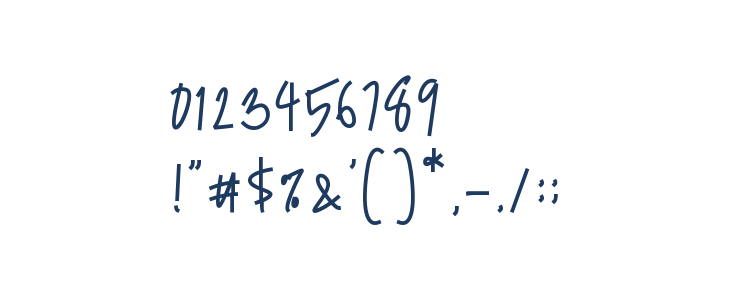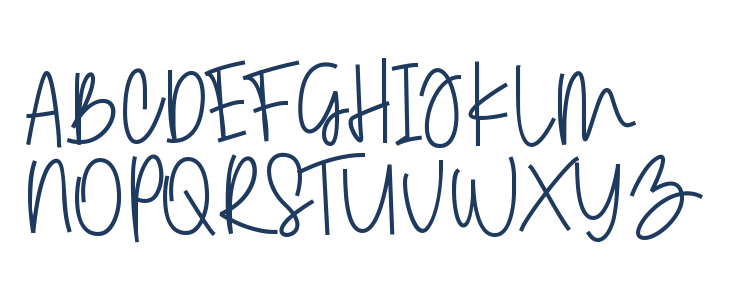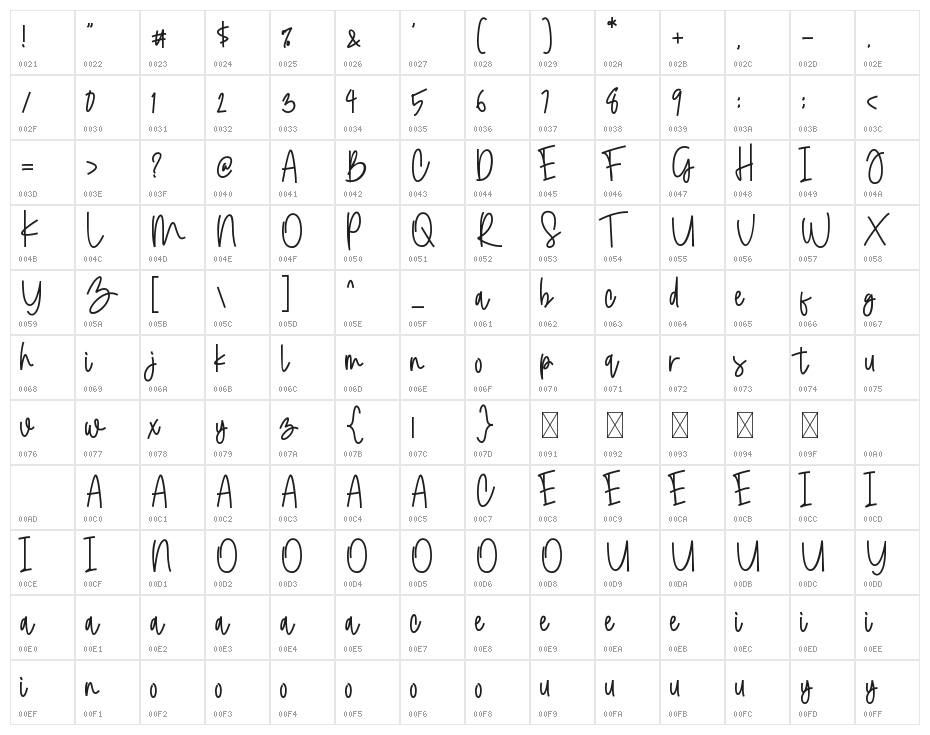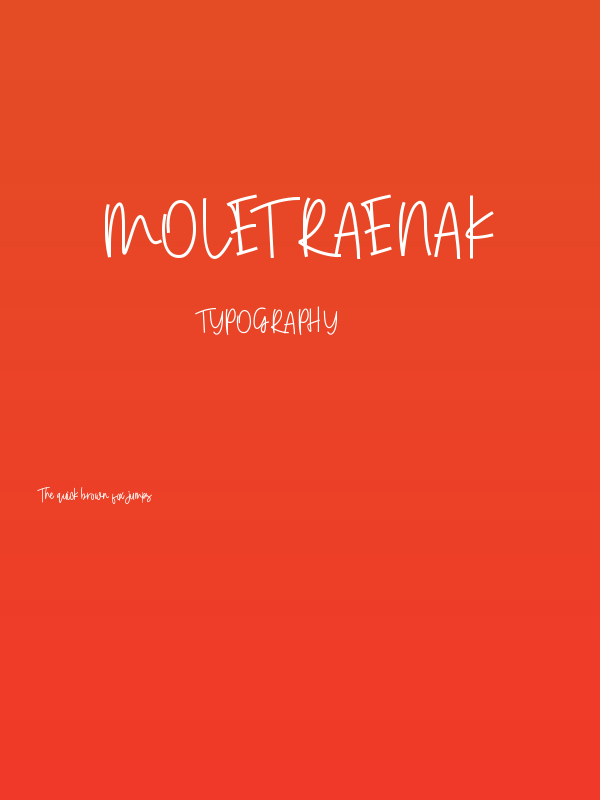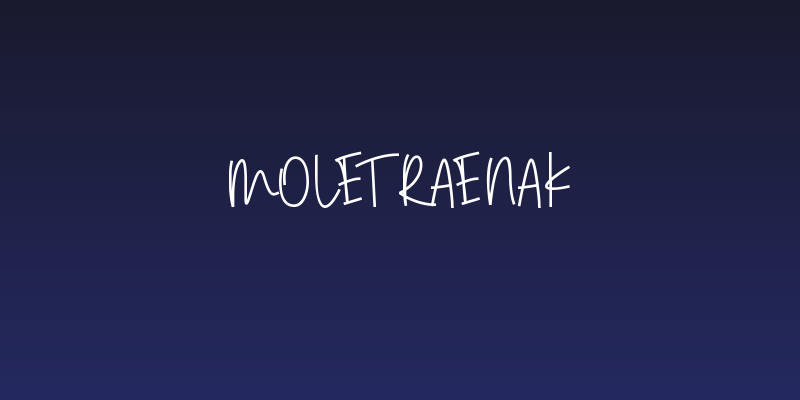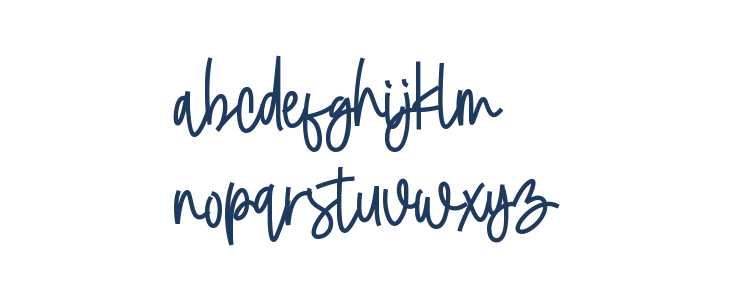
Molet Raenak Font
Molet Raenak Description
A playful, handwritten script with tall, narrow letters and loose, casual strokes. The characters have a natural, free-flowing appearance with varying baseline heights and slightly exaggerated ascenders and descenders.
| Overall Style | Playful, Casual, Modern |
| Use Case | Logos, Headlines, Informal text, Quotes |
| Proposed Projects | Greeting cards, invitations, social media graphics, personal branding, children's books. |